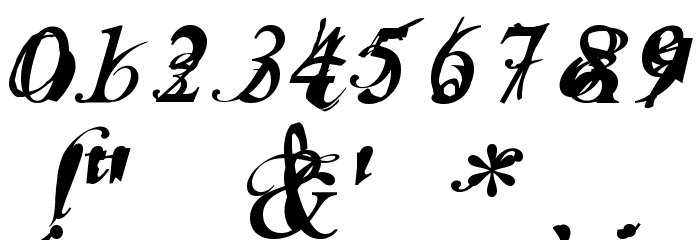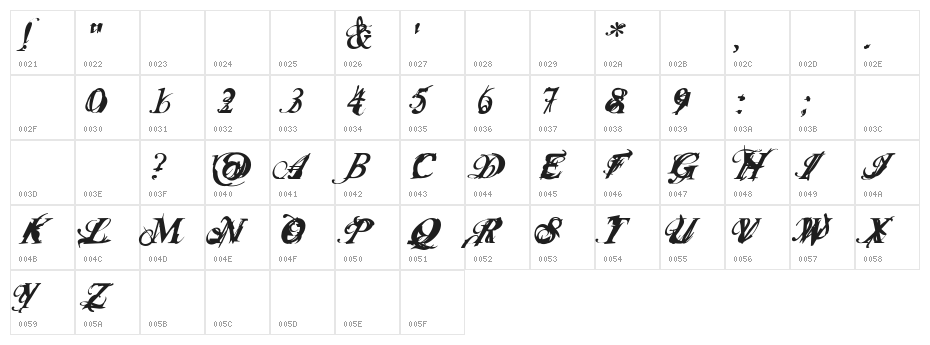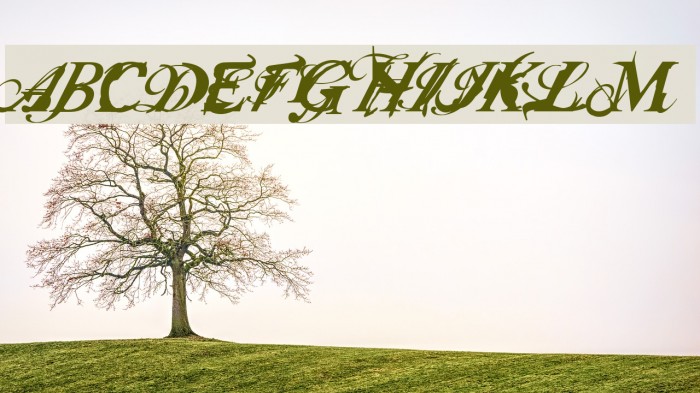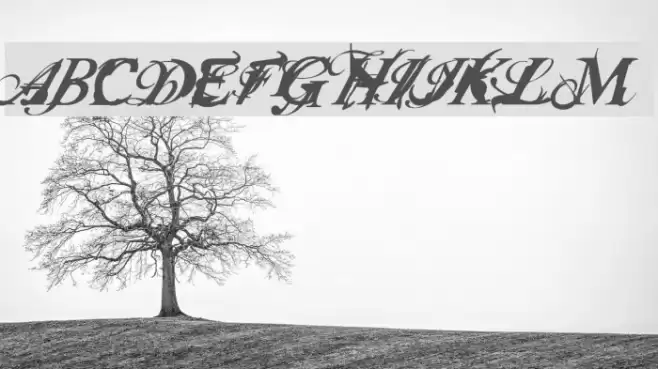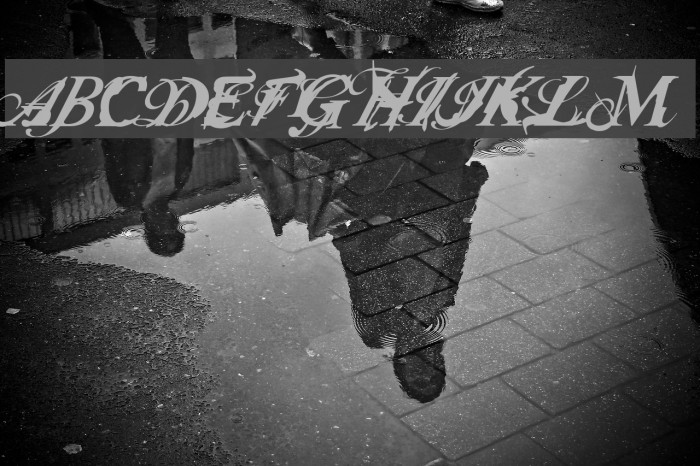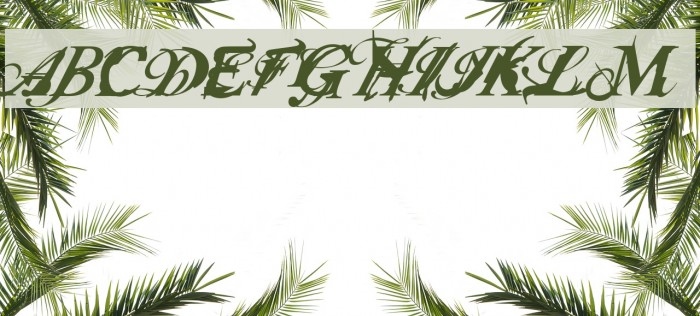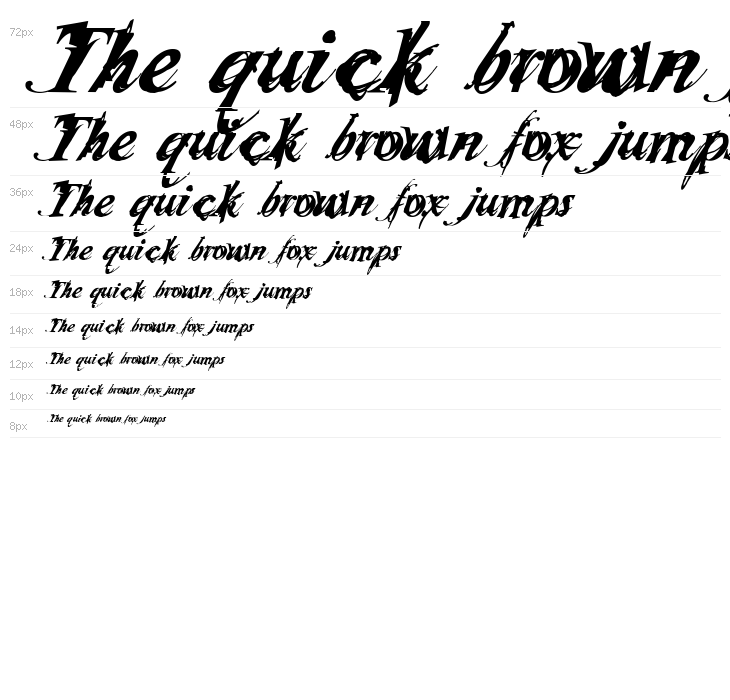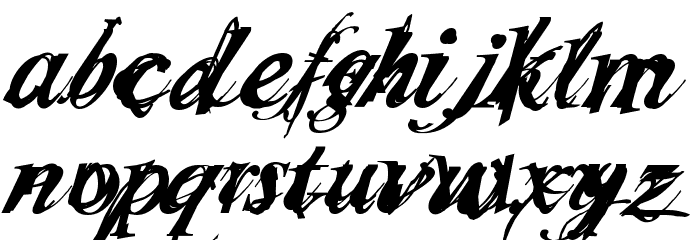
Infiltrace Italic Font
Infiltrace Italic Description
This font exhibits a highly decorative and intricate style, characterized by its bold, italicized script. The letters are adorned with elaborate swirls and flourishes, creating a sense of movement and elegance. The uppercase letters are particularly ornate, with exaggerated loops and extensions that give them a dramatic flair. The lowercase letters maintain the same level of detail, ensuring consistency throughout the typeface. Numbers and special characters are equally stylized, integrating seamlessly with the overall design. This font's unique aesthetic makes it stand out, offering a visually striking option for creative projects.